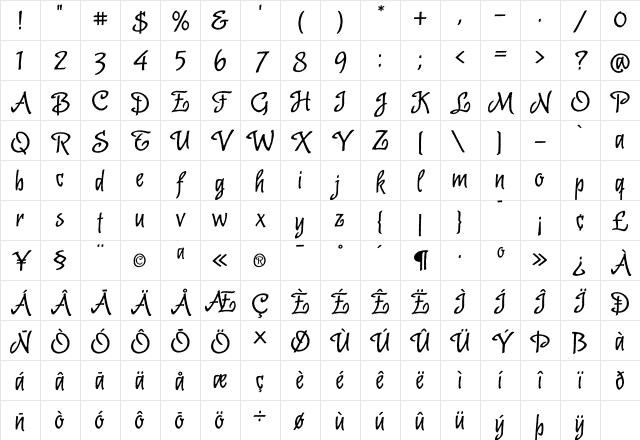
Malambo OT Regular
Foundry: 2006 ￿Paul & koziupa, Sudtipos
Designer: Angel Koziupa & Alejandro Paul
Design Context for Malambo OT
Malambo OT is a composed and adaptable typeface that performs quietly and consistently across a wide range of design contexts.